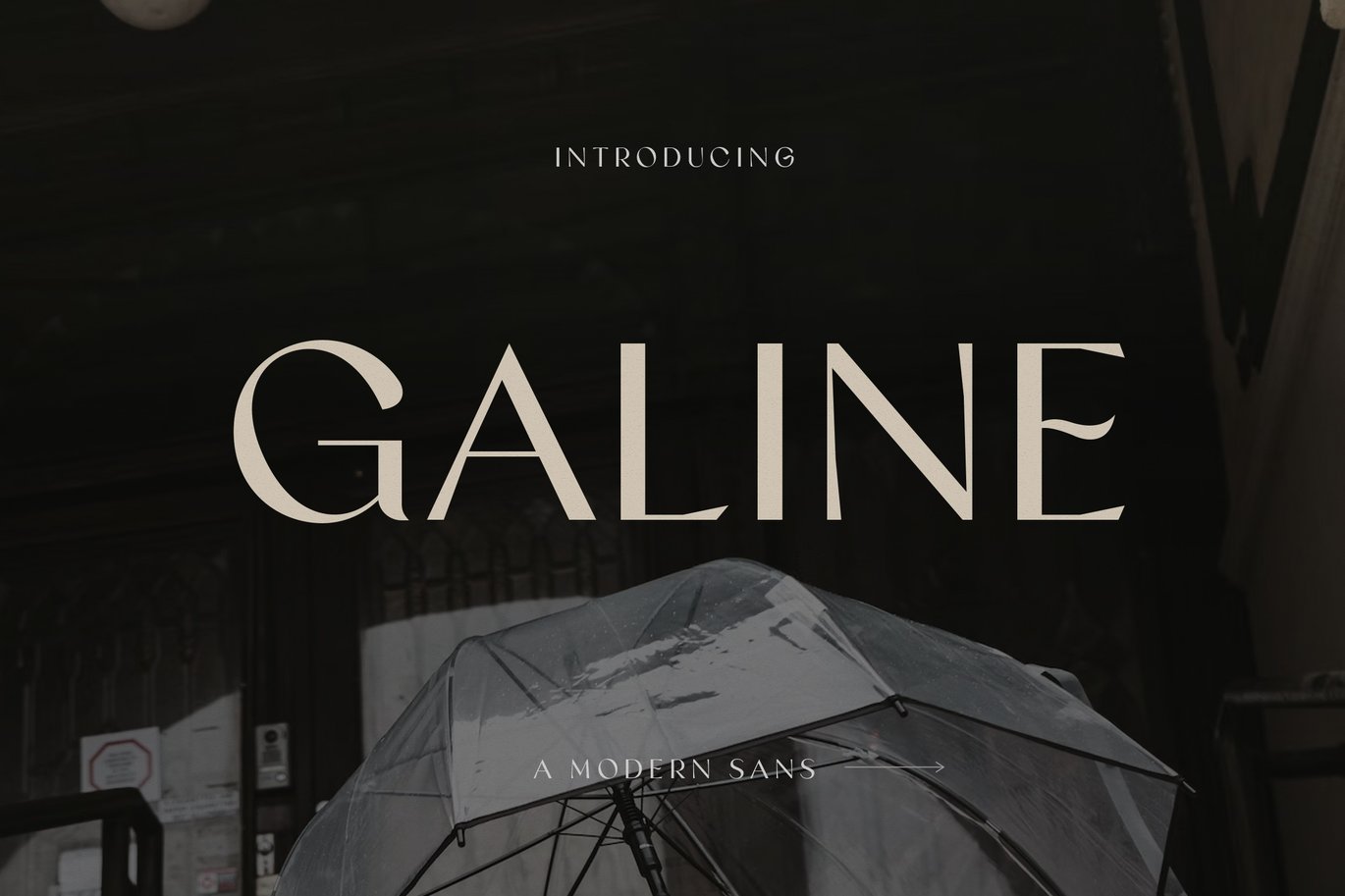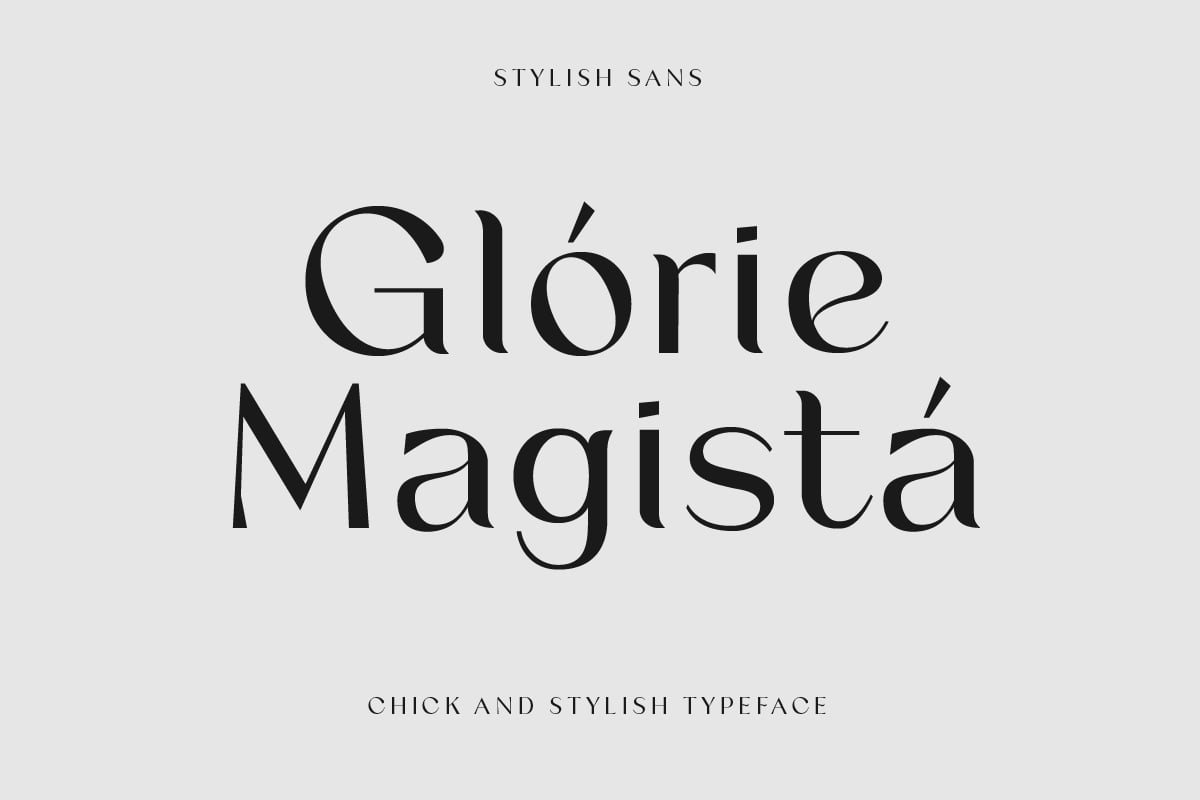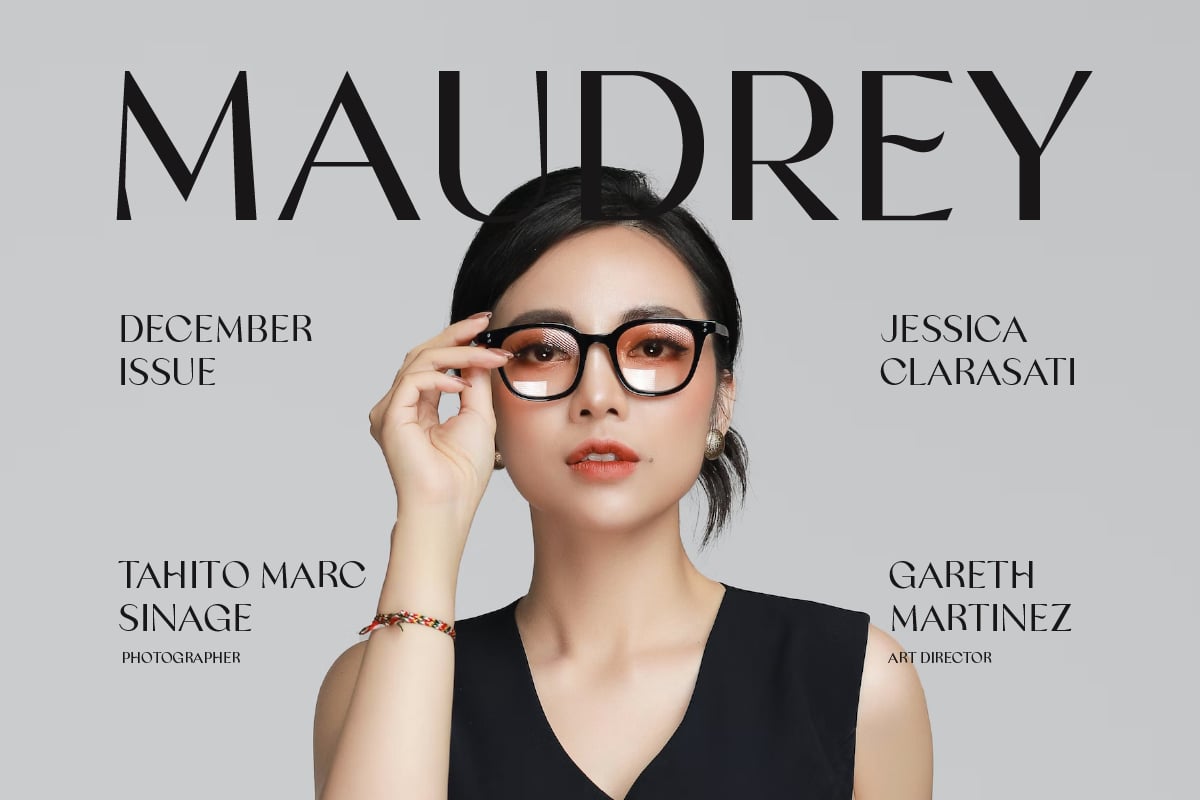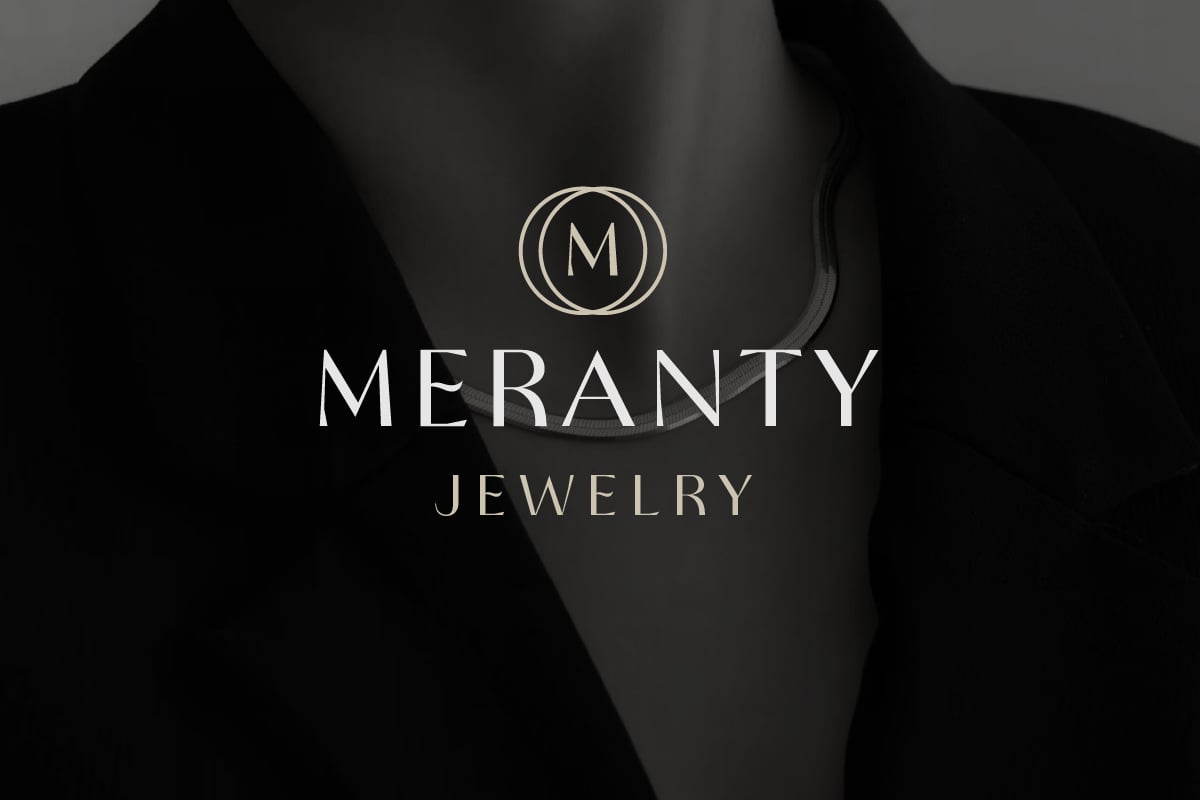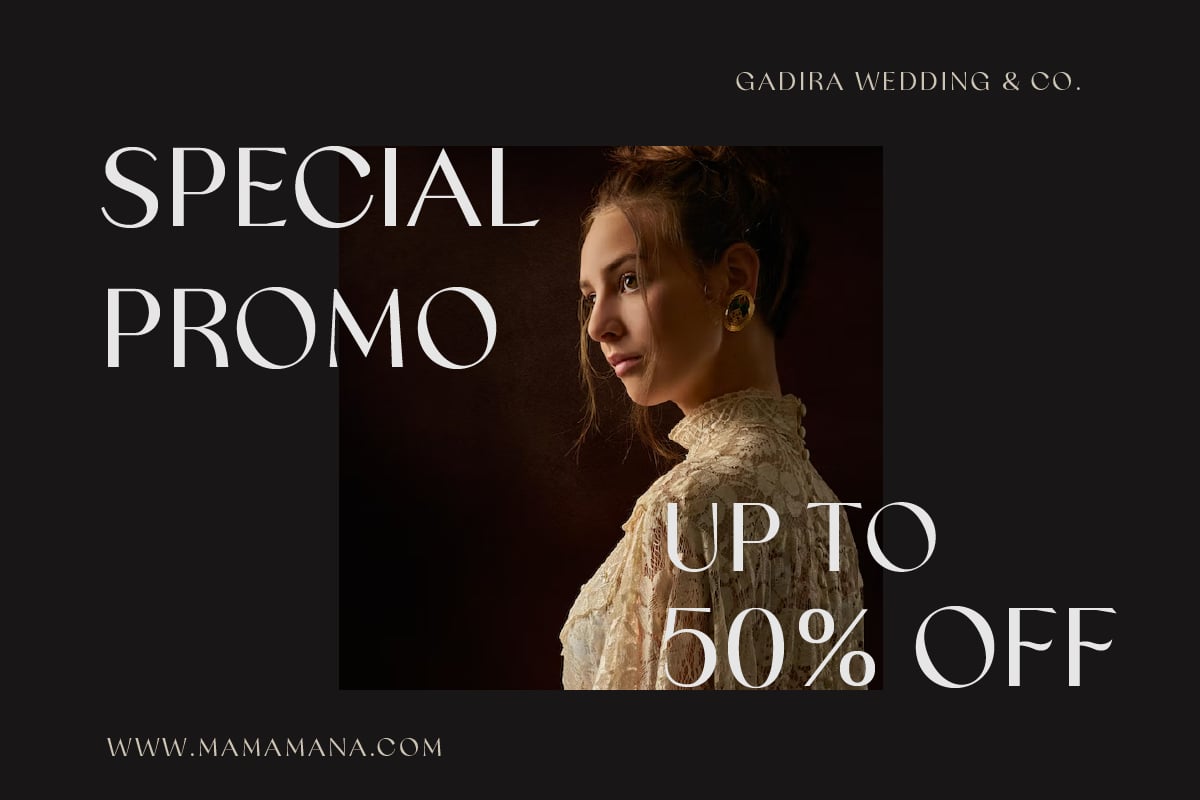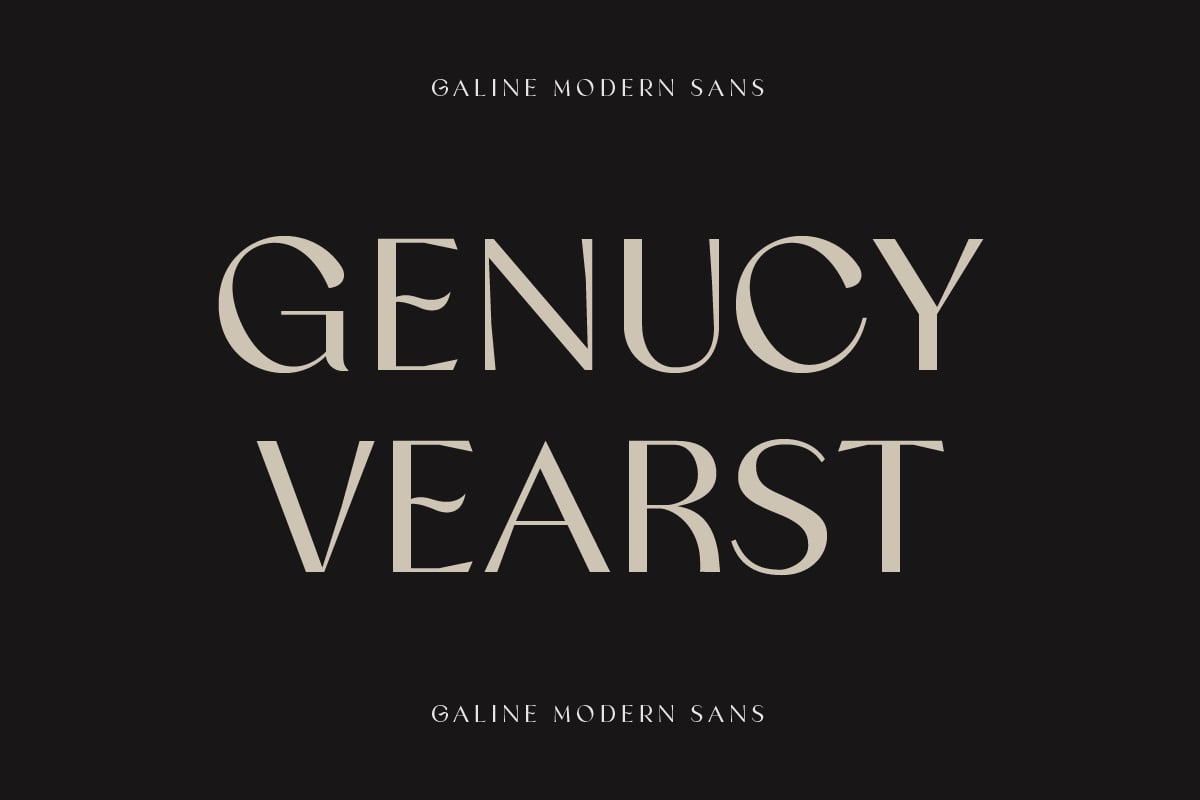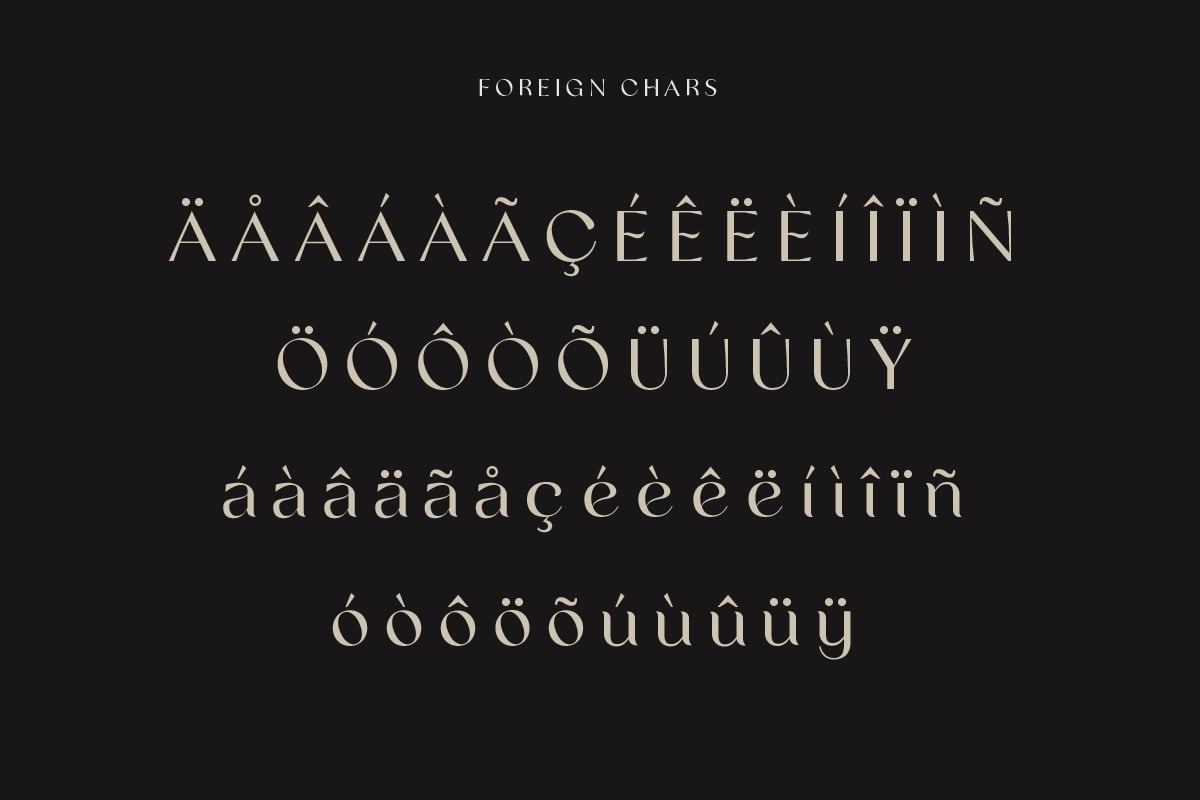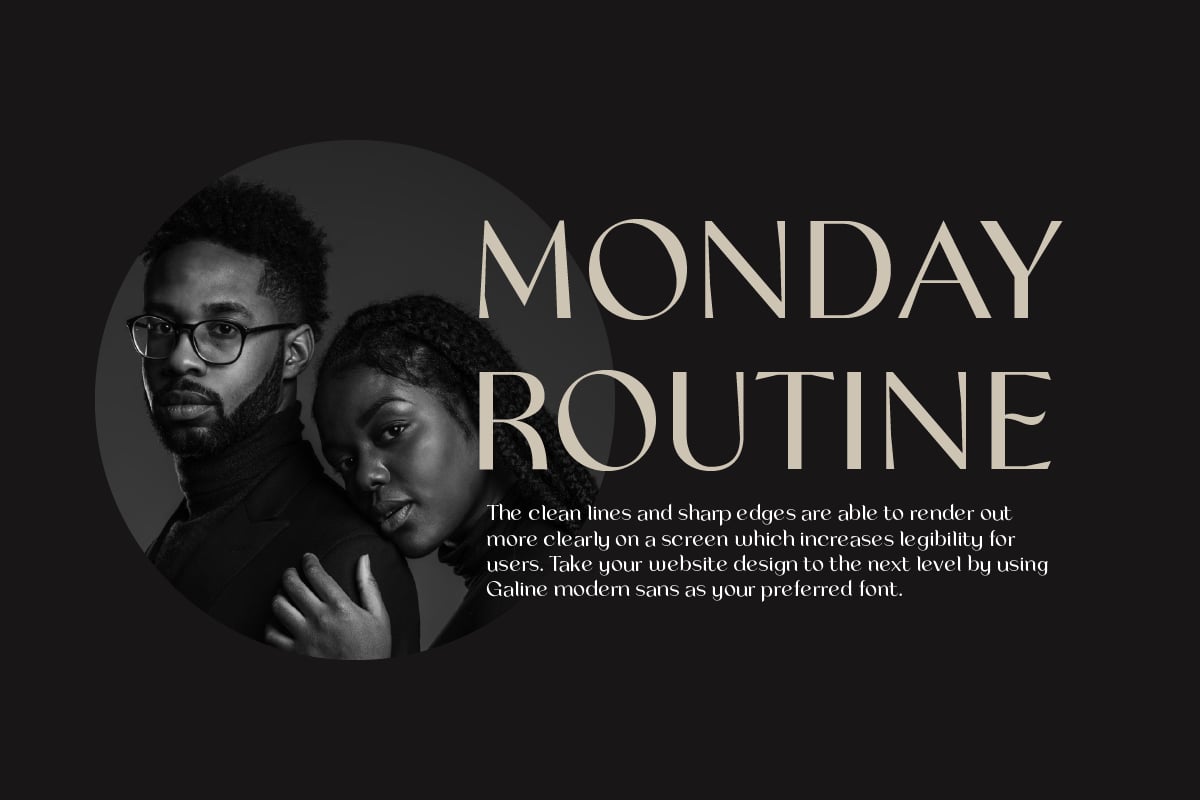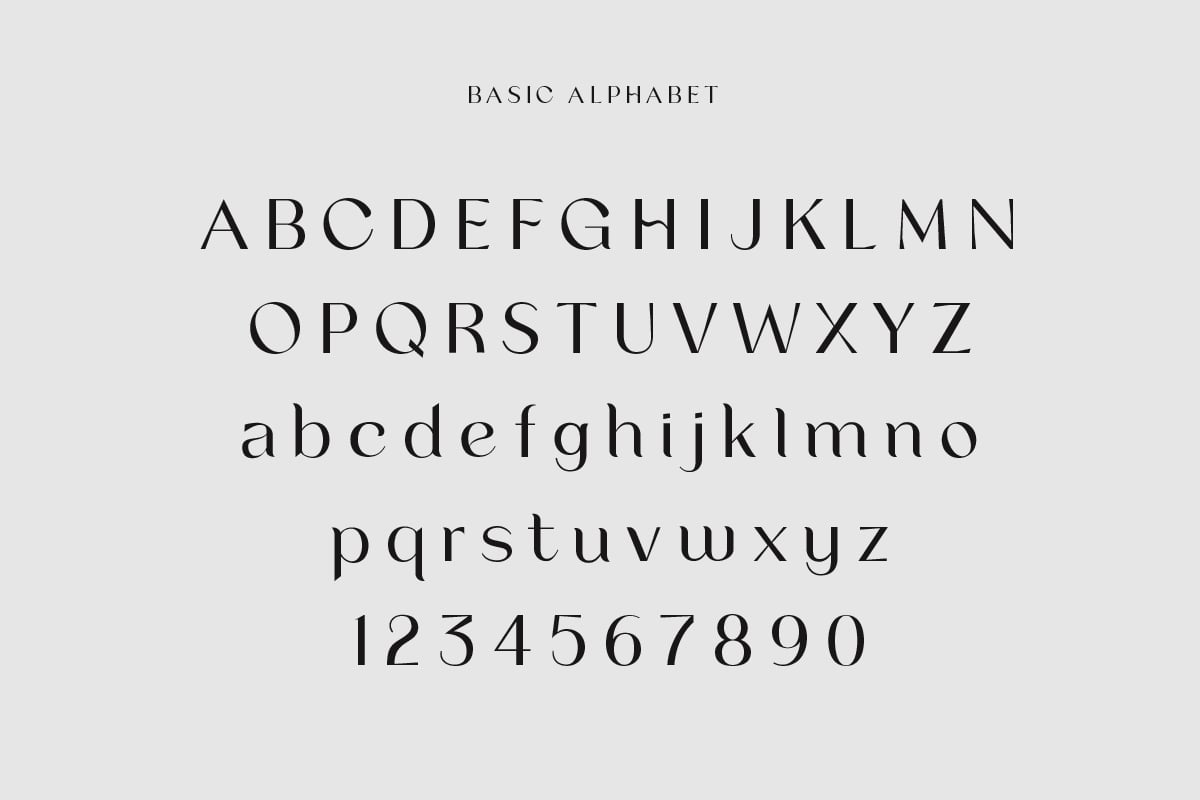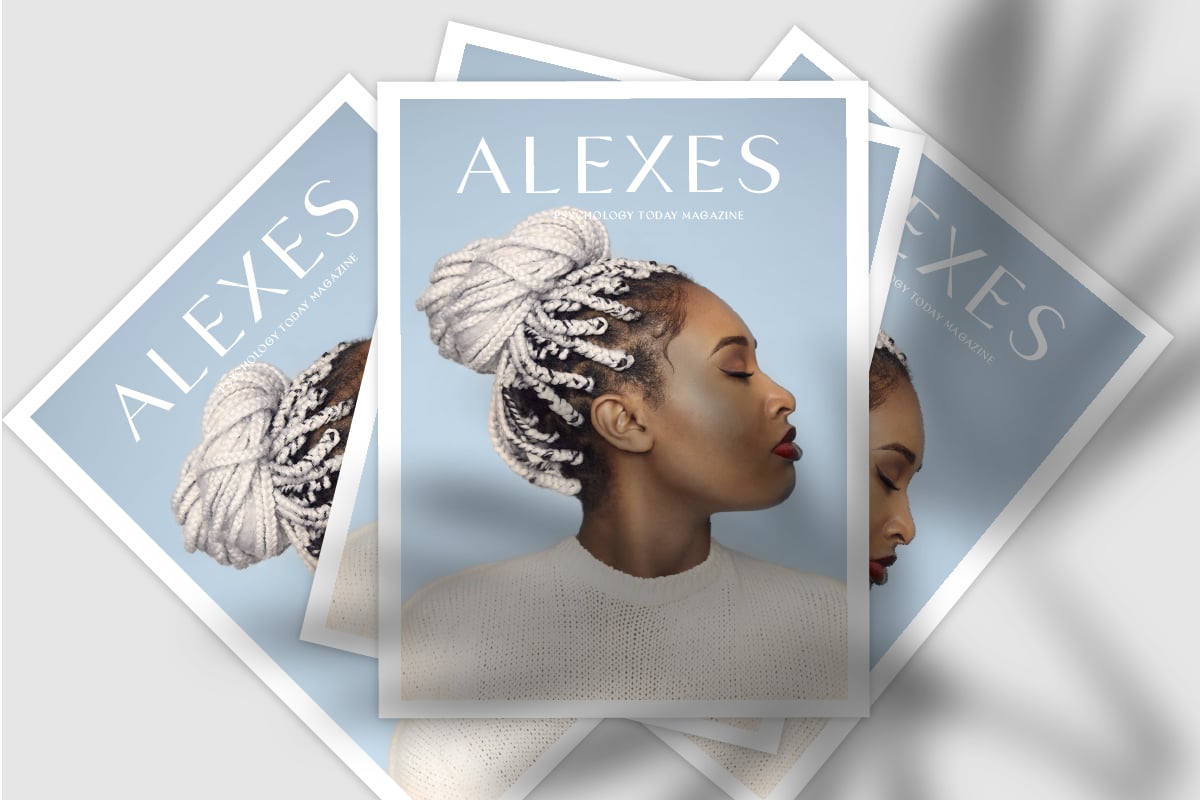
Galine Modern Luxury Font
Galine Modern Luxury Font is perfect for making a statement with your next project. This font is unique, stylish, and perfect for adding an extra touch of elegance to any design.
We know you will love using Galine in your next project. It’s perfect for fancy logos, elegant titles, classy magazines, and more! Plus, it supports multiple languages so you can use it anywhere in the world.